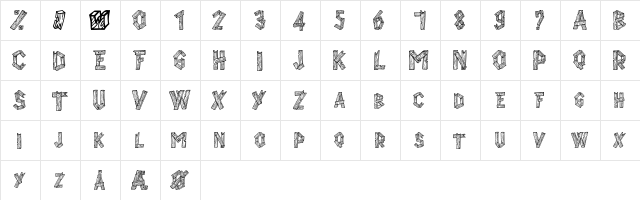
AlphaWood Regular
Design Context for AlphaWood Typeface
AlphaWood taps into classic Western woodtype traditions — bold, characterful, and impossible to ignore.
A natural fit for craft spirits, ranch branding, rodeo events, and Americana-inspired design work.
Font Pairing: Combine AlphaWood with a simple slab or neutral sans — period-accurate companions reinforce the vintage feel without competing for attention.
Pro Tip: Use AlphaWood for short, impactful bursts of text — it shines in poster headlines and product names rather than extended copy.